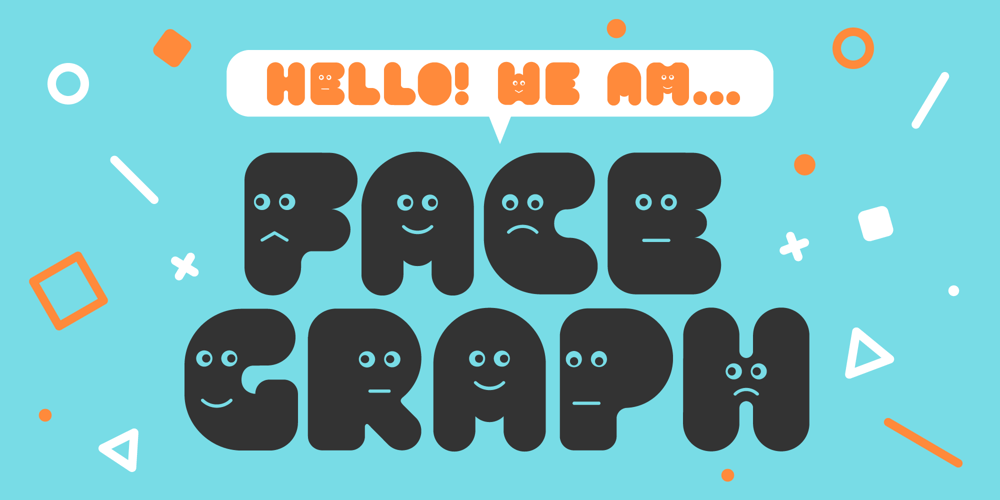
Facegraph
Facegraph font
Facegraph Font Family was designed by hiroki kanda and published by hiroki kanda. Facegraph contains 1 styles and family package options. If you are looking for a more individual typeface, This font is the best choice.This font is a very useful typeface for situations where you want to be a little playful, products for children, brands that want to give a soft impression, and those that want to stand out on social media posts.I’m sure that just using this typeface will create a graphic with a fun atmosphere.